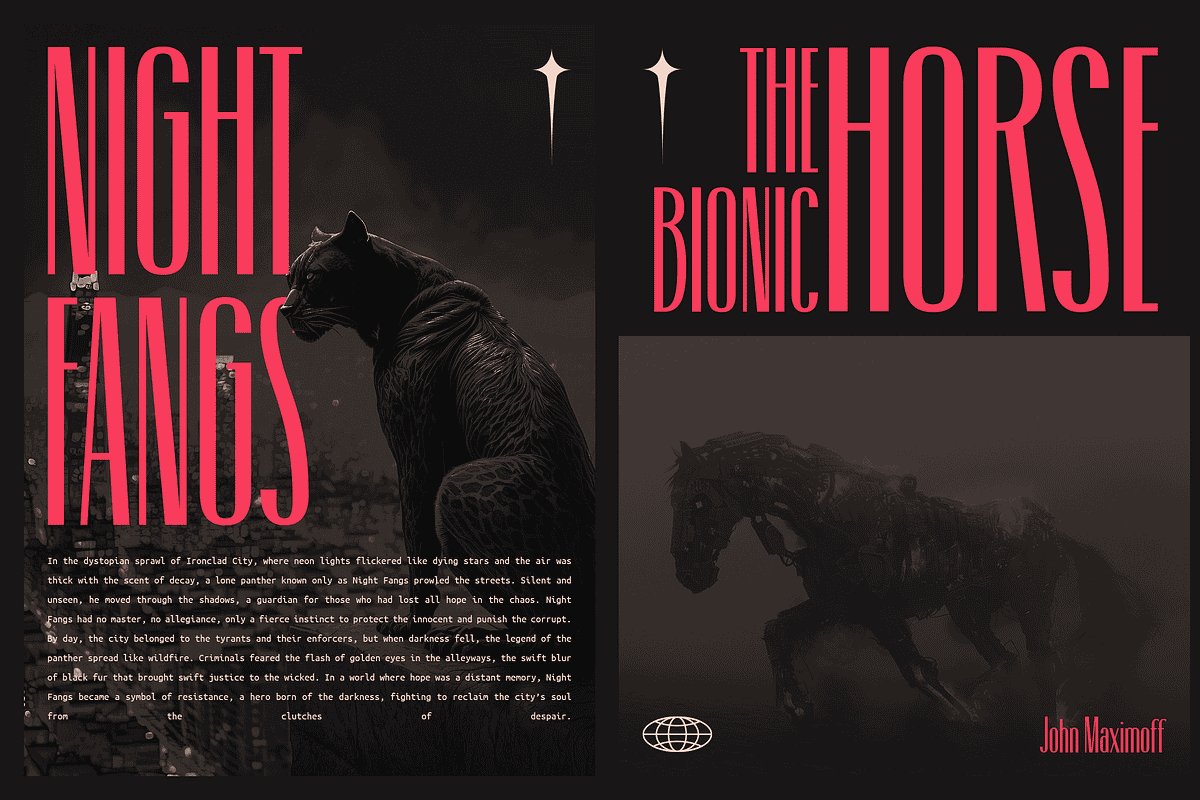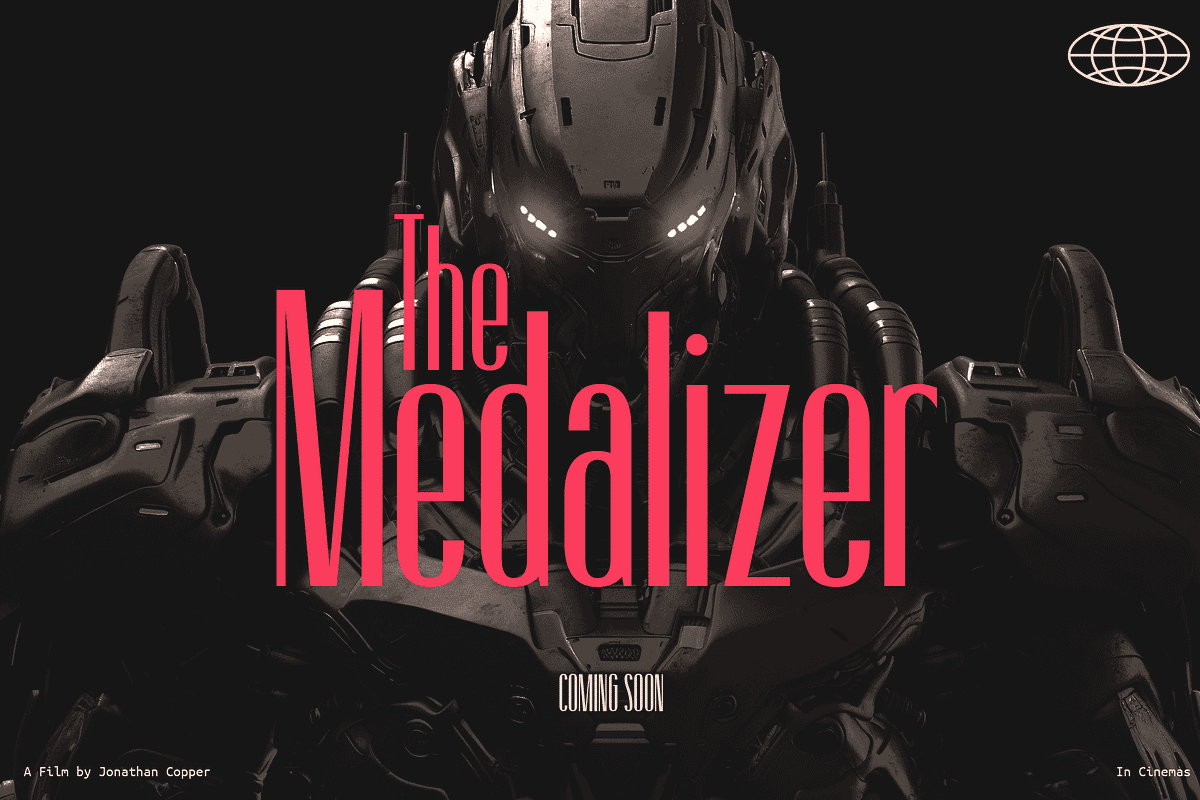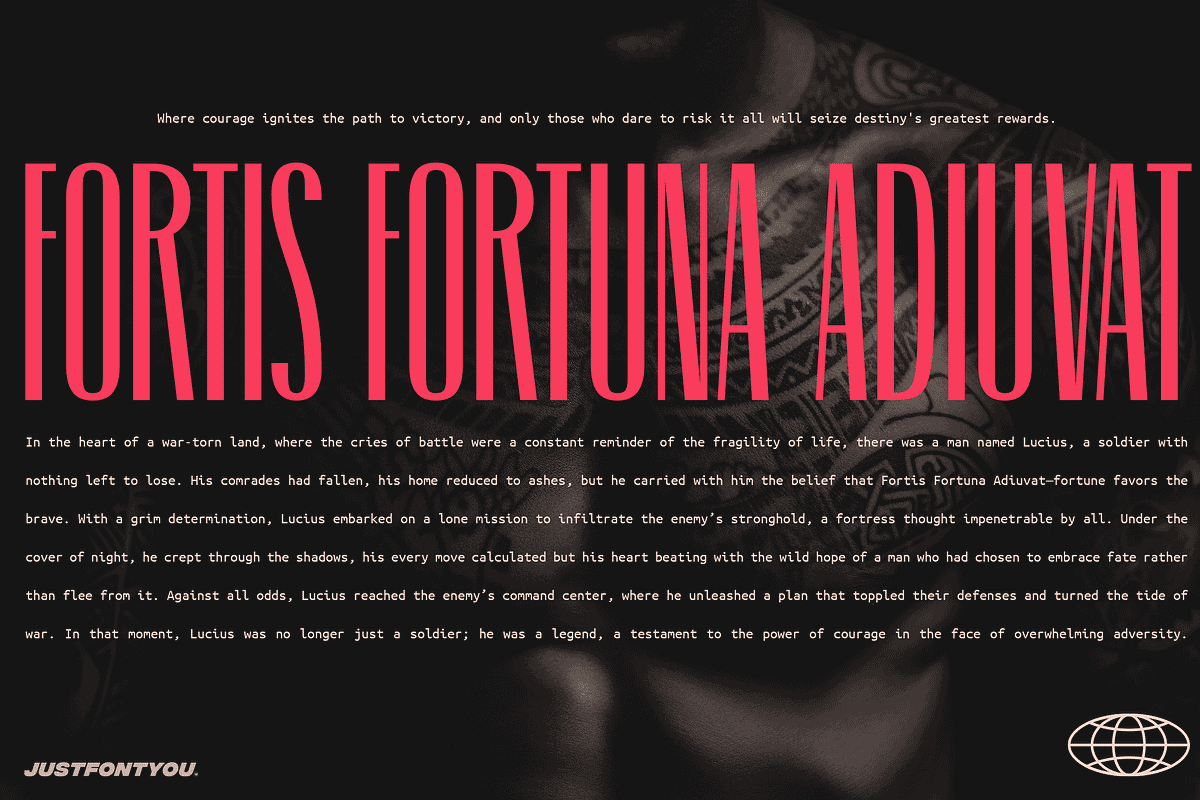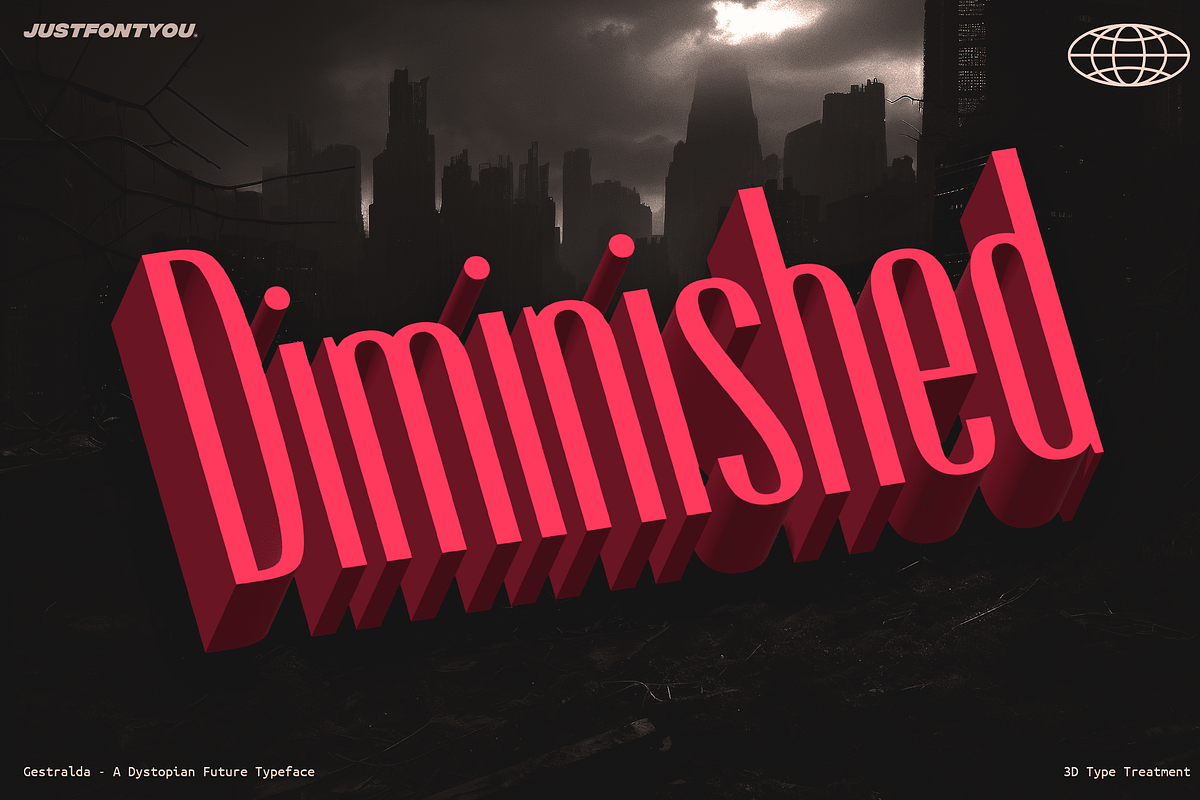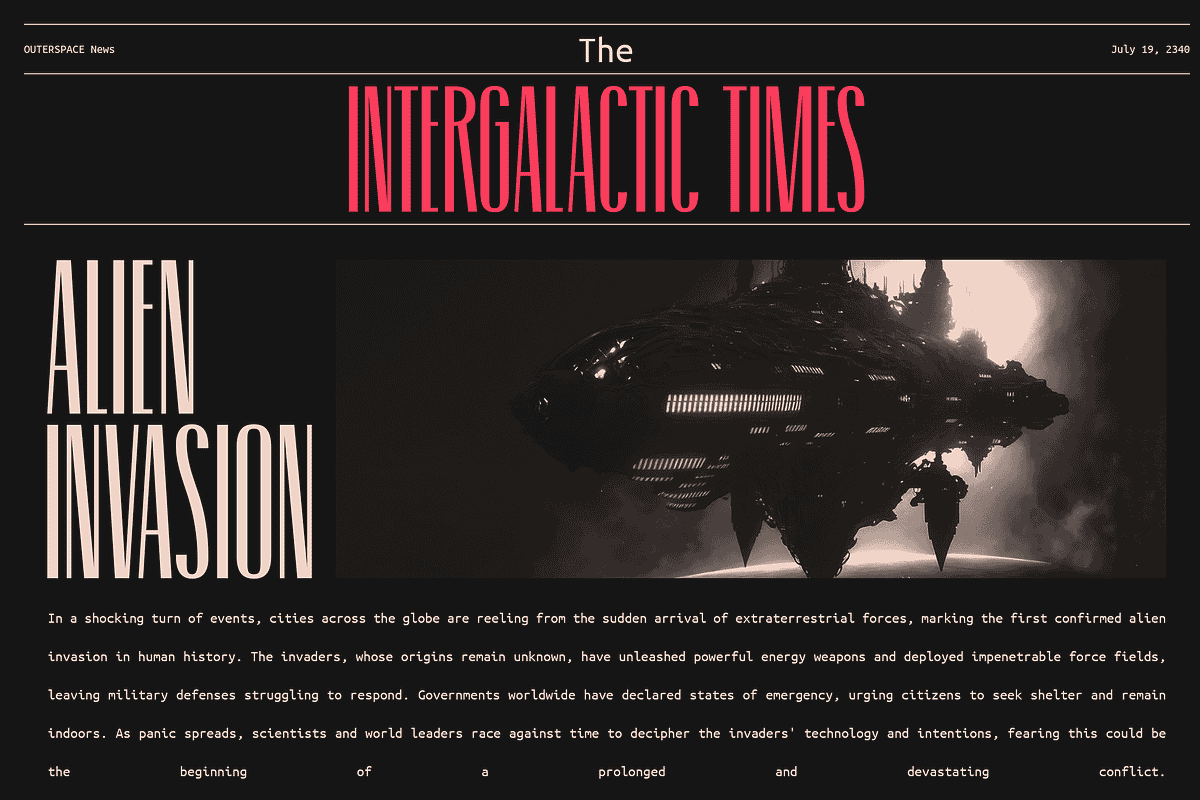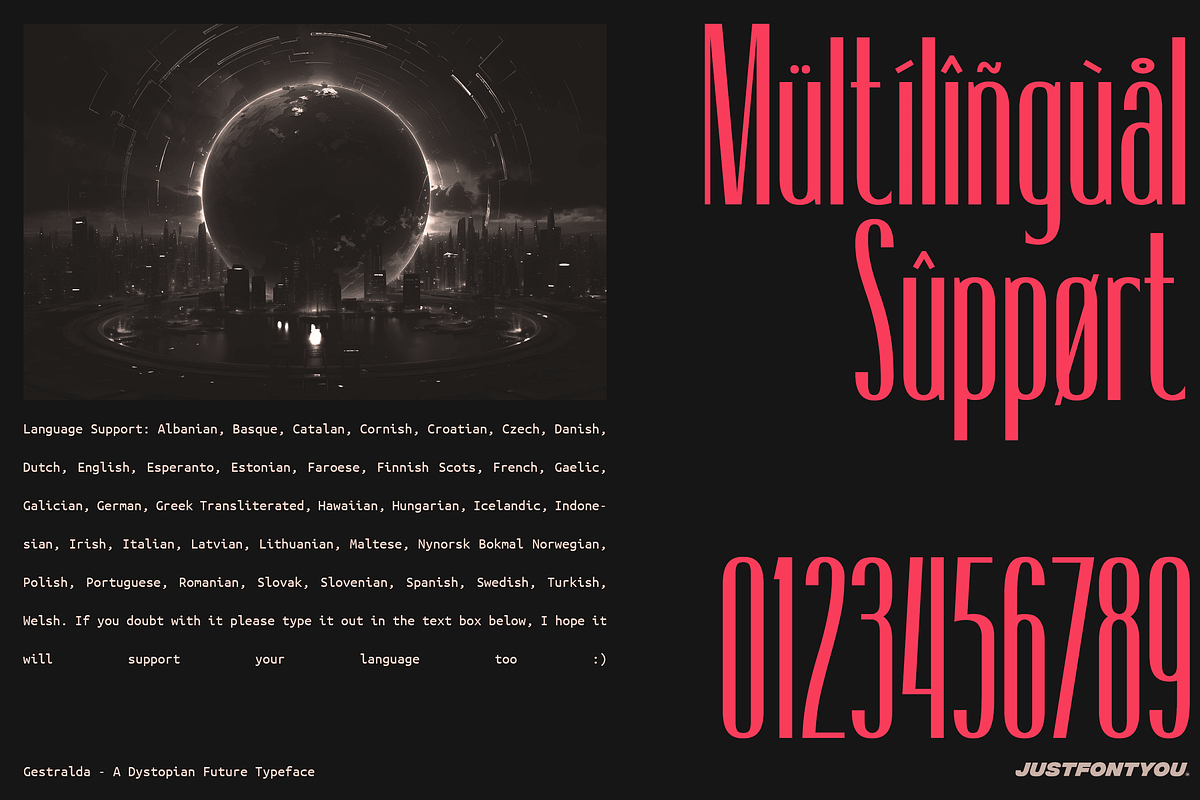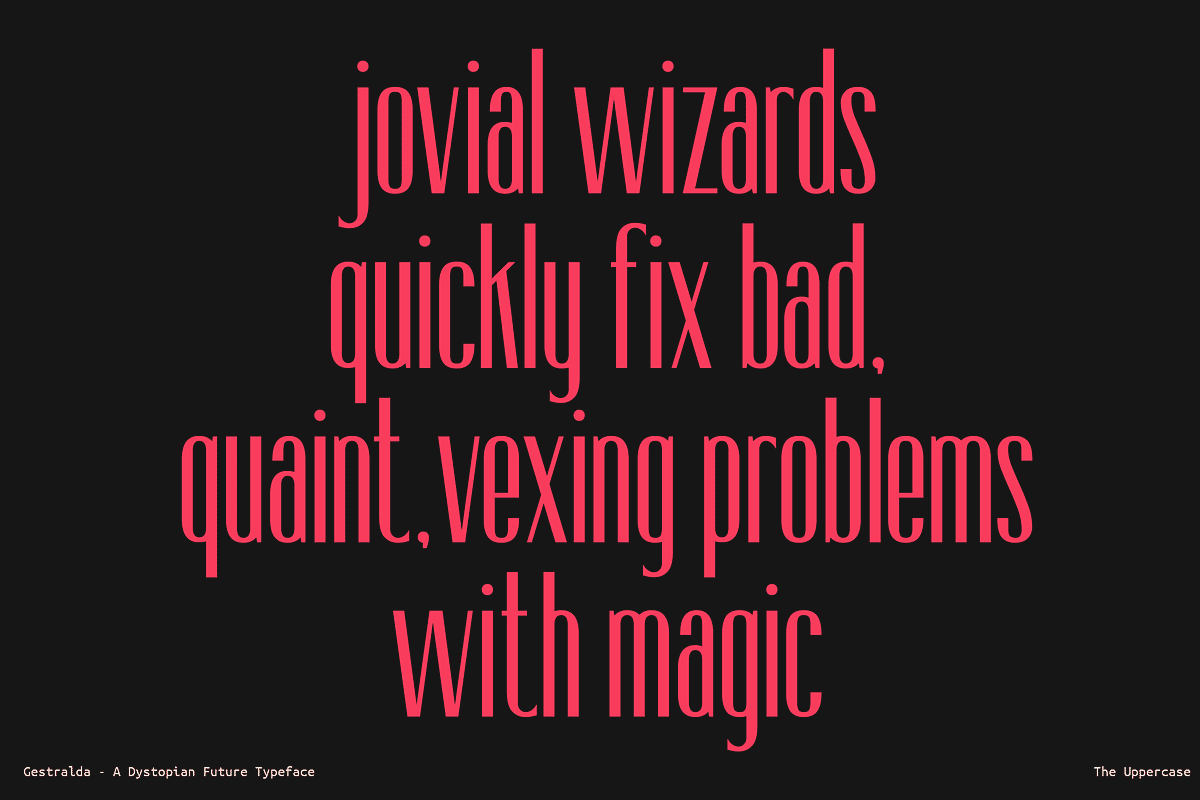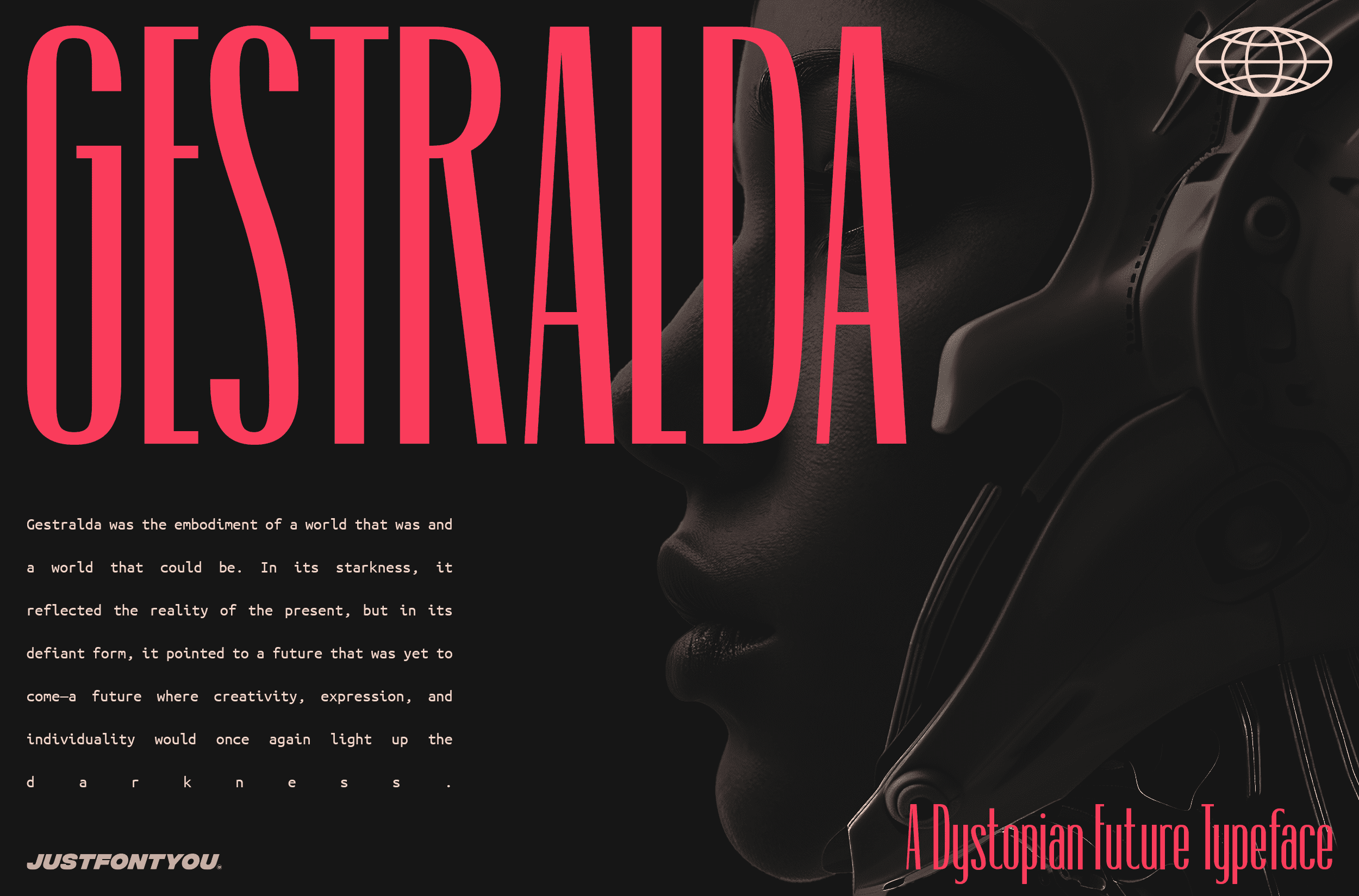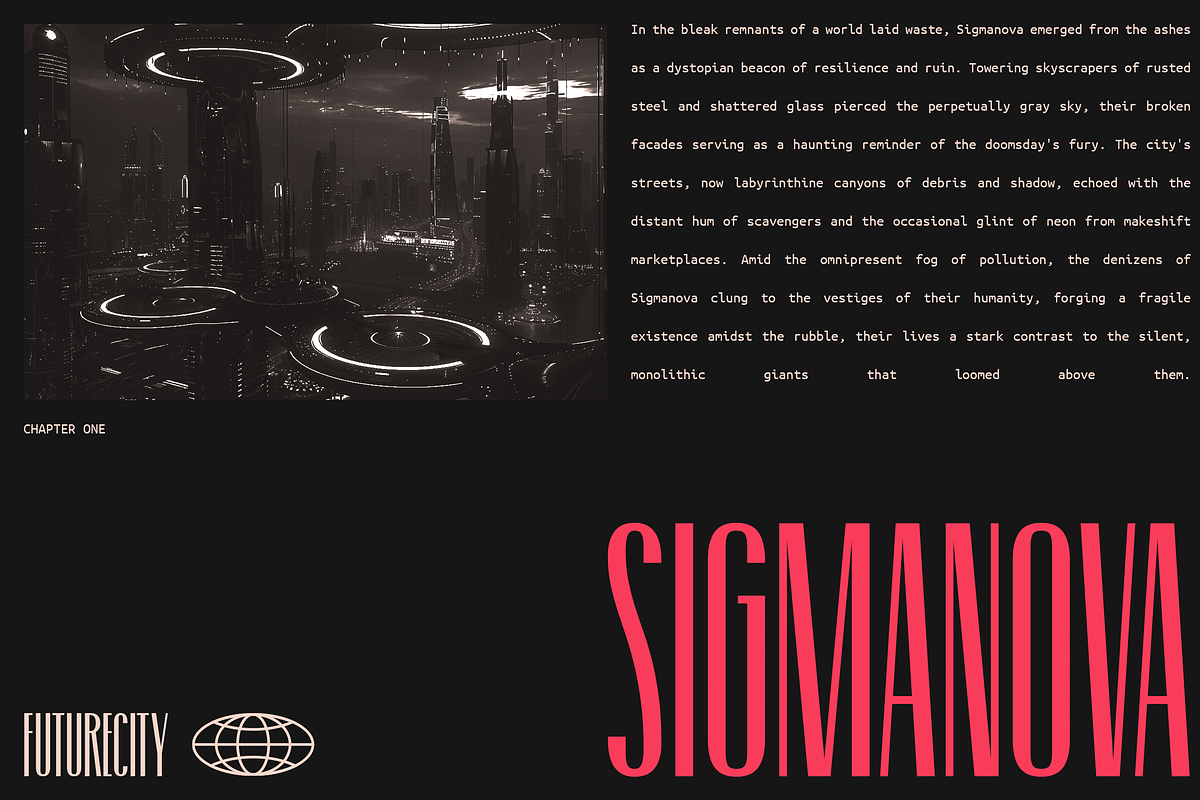
Gestralda - A Dystopian Future Fonts
Welcome to the future of design with Gestralda, a typeface inspired by the visuals of iconic sci-fi movies and TV shows. Every letterform is meticulously crafted to evoke a world where technology reigns supreme, and humanity grapples with its own creations. Whether you're designing for a high-tech brand, a dystopian world, or a futuristic project, Gestralda has you covered.
Its ultra-condensed style is perfect for fitting bold messages into tight spaces. From posters to websites, Gestralda is the ideal choice for making your project stand out in a futuristic world.
Perfect for everything from logos and branding to gaming, esports, posters, music videos, album art, retro vibes, ads, digital content, stream overlays, book covers, packaging, merch, fashion, and so much more!
Dare to explore a new world where the future is uncertain, yet style is undeniable. Download Gestralda today, and redefine what typography can do.